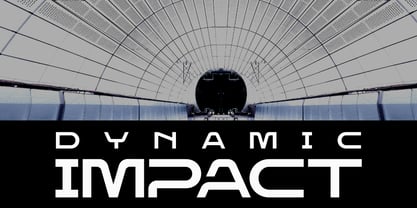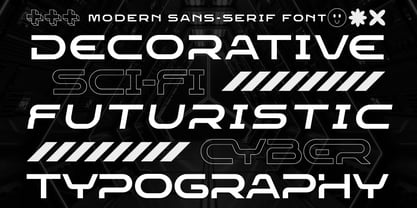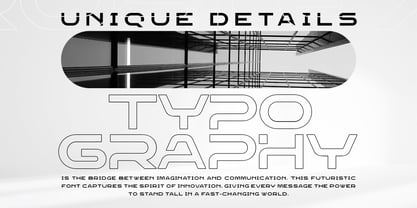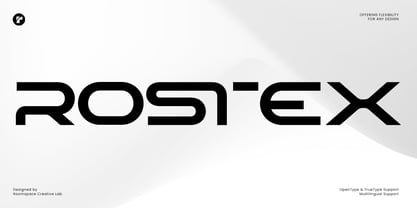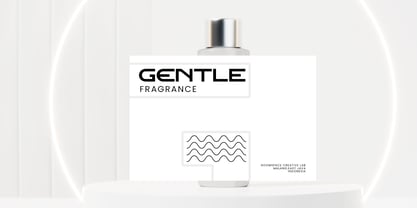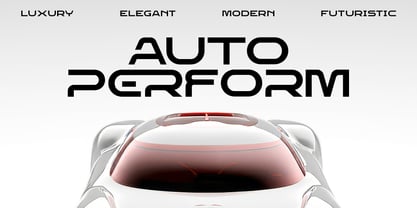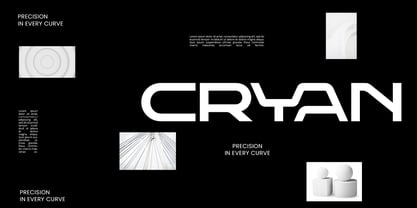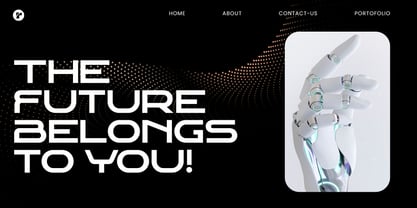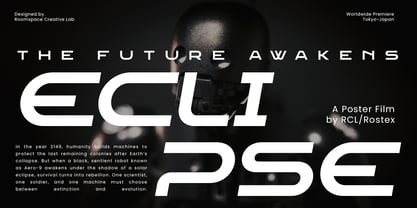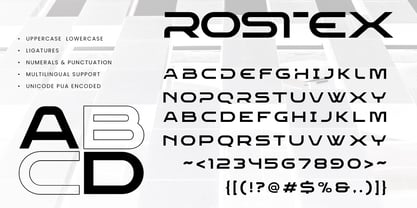
Rostex
The Rostex Font Family was designed by Bakhrudin Ja'far and published by Jafar07. Rostex contains 4 styles and family package options. More about this family
Rostex is a futuristic display font that combines sleek geometry with modern techno aesthetics. Its clean and bold letterforms reflect innovation and forward-thinking design, making it the perfect choice for projects that want to stand out with a digital edge. Designed with precision, Rostex features consistent kerning, sharp lines, and balanced proportions that ensure readability while keeping a futuristic look. The font includes uppercase, lowercase, numbers, and multilingual support, making it versatile for both large-scale displays and detailed design needs. Whether you’re working on tech branding, digital products, sci-fi posters, gaming visuals, or modern editorial layouts, Rostex will bring a cutting-edge presence to your design. Try it today and give your creative projects a strong, futuristic identity.
A little from my personal design & background: My name is Bakhrudin Ja'far, I live in Malang, Indonesia. I am currently completing my degree in visual communication design and I have worked as a lettering artist and logo designer for many years. I finally started my studio called roocspace creative lab (jafar07) Studio a few months ago and with my team made my letters into typography.